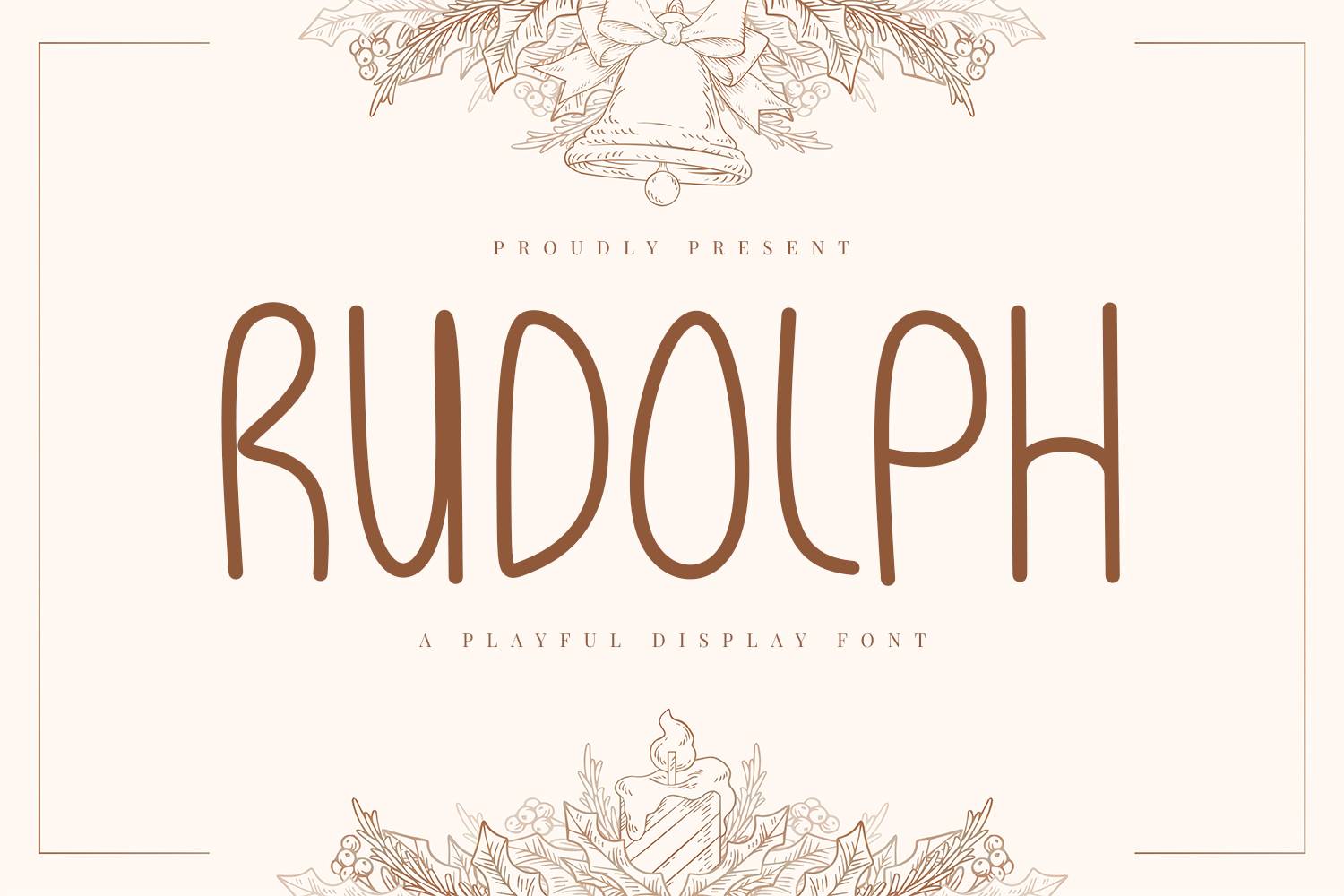
Rudolph is a tall, narrow sans serif font with a playful, handwritten style that feels casual and approachable. Its thin strokes and slightly whimsical letterforms make it ideal for creative projects, children’s materials, or informal branding where a friendly and lighthearted tone is desired. This font works especially well for headlines, posters, and invitations that need a unique and charming touch.
Rudolph Font
About Rudolph Font